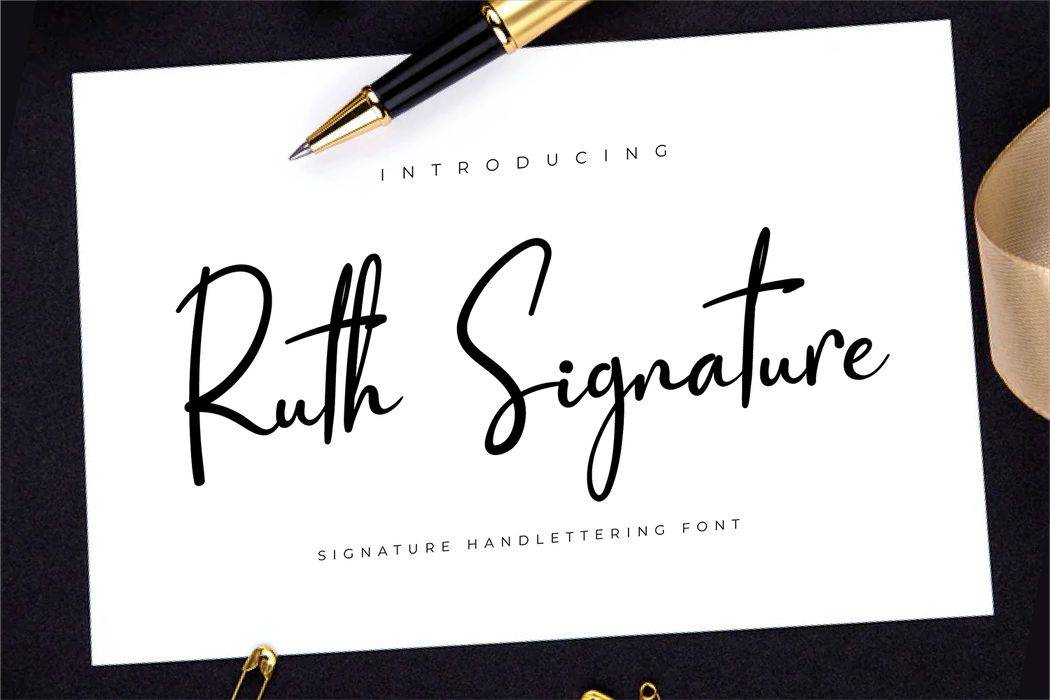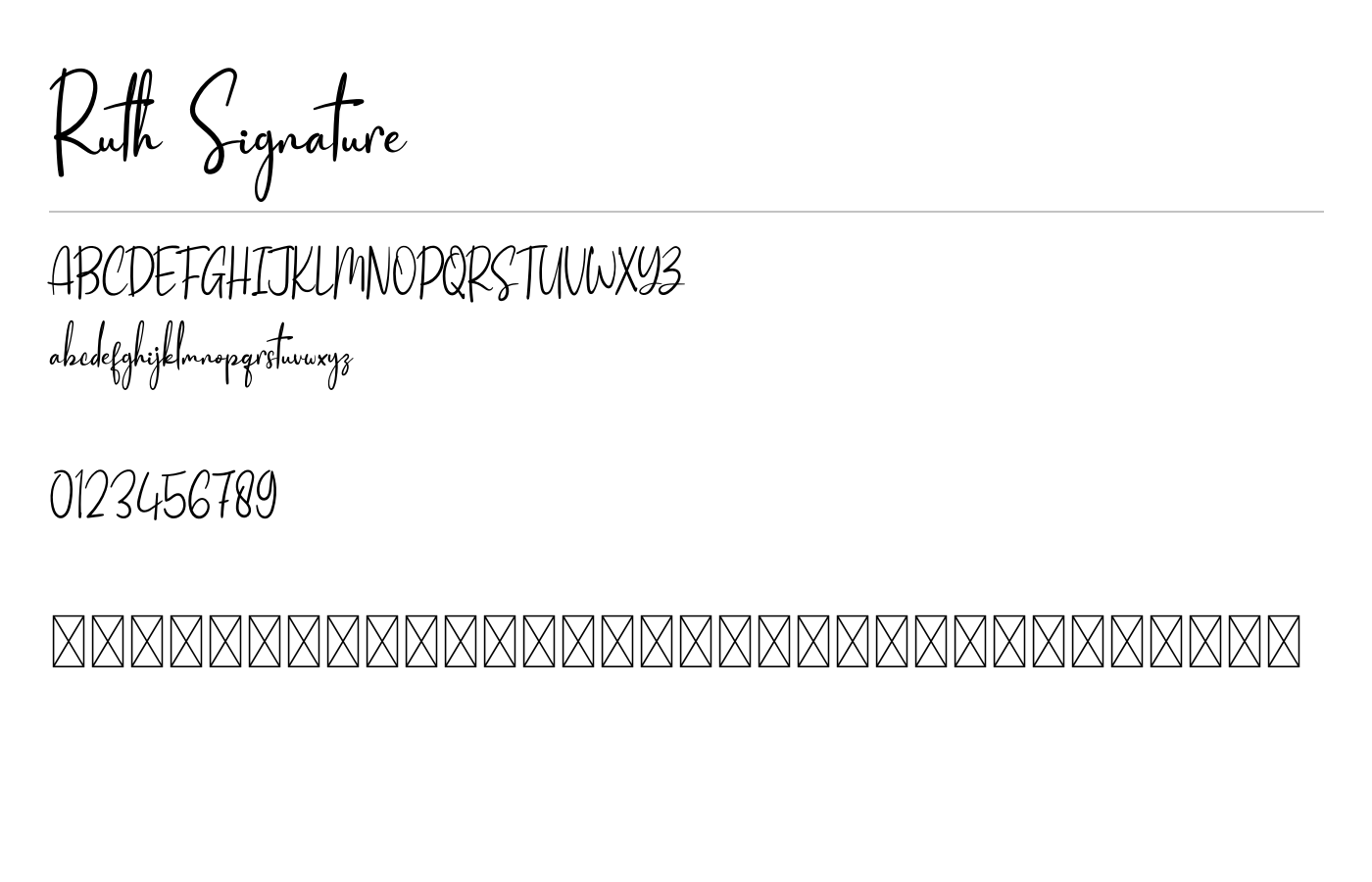
Ruth Signature Font is a delicate, handwritten script with a light, airy feel that mimics natural pen strokes. Its tall, narrow letterforms and smooth, flowing lines give it an elegant yet modern personality, making it perfect for branding, fashion, invitations, and personal logos where a personal and stylish touch is desired. This font shines best in headlines and display uses, adding a chic and approachable vibe to any project.
Ruth Signature Font
About Ruth Signature Font